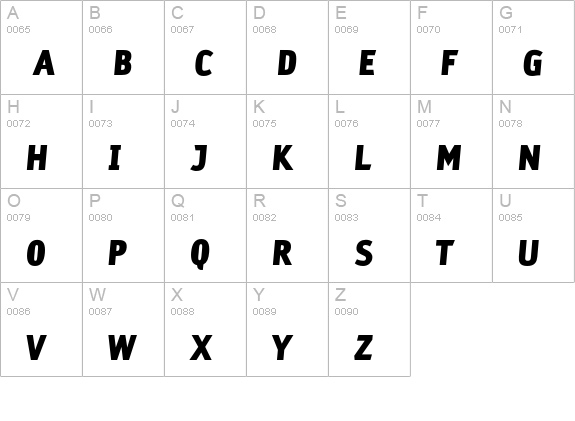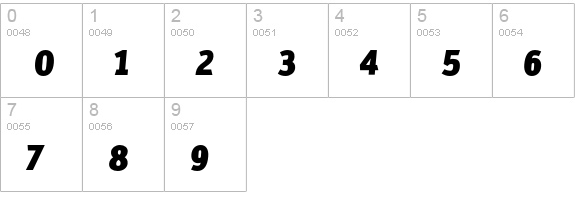
Sodium-BlackItalic Font Details
Introducing Sodium-BlackItalic, a captivating and versatile font that adds a touch of elegance and sophistication to any design project. With its sleek, slanted letterforms, this font exudes a sense of modernity and style, making it perfect for headlines, logos, branding, and more. Sodium-BlackItalic boasts a unique combination of boldness and finesse, creating a visual impact that commands attention. Its carefully crafted design ensures legibility even at smaller sizes, while its distinctive italics add a sense of flair and drama to your text. One of the most remarkable aspects of Sodium-BlackItalic is that it is completely free to download. Yes, you read that right! This exquisite font is freely available at FontsMarket.com, a trusted source for high-quality fonts. Whether you are a graphic designer, a web developer, or simply someone who appreciates the beauty of typography, Sodium-BlackItalic is a must-have in your font collection. Its versatility allows it to effortlessly adapt to various design styles and projects, giving you endless creative possibilities. So why wait? Enhance your designs with the captivating allure of Sodium-BlackItalic. Download it for free today at FontsMarket.com and unlock the potential of this remarkable font.